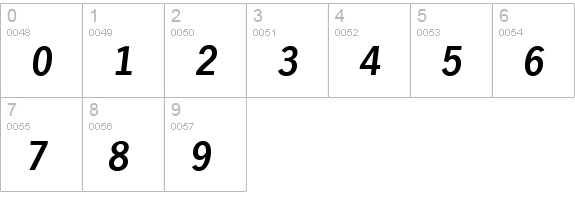
Hamburg-DemiBoldIta Font Details
Hamburg-DemiBoldIta is a stunning font that exudes elegance and sophistication. Its unique blend of boldness and italicized curves creates a visually striking design that is sure to captivate any audience. With its precise and clean lines, Hamburg-DemiBoldIta is perfect for a wide range of creative projects, including branding, advertising, packaging, and more. Whether you're designing a sleek logo or crafting a stylish headline, this font will effortlessly elevate your work to the next level. One of the most appealing aspects of Hamburg-DemiBoldIta is that it is available for free. That's right, you can freely download this exceptional font at FontsMarket.com. This makes it accessible to designers of all levels, whether you're a seasoned professional or a passionate hobbyist. The versatility of Hamburg-DemiBoldIta is truly remarkable. Its bold and italicized nature allows for a wide range of typographic expressions, giving you the freedom to convey various moods and emotions in your designs. From modern and edgy to classic and elegant, this font can effortlessly adapt to any aesthetic. Furthermore, Hamburg-DemiBoldIta is meticulously crafted with attention to detail, ensuring that each character is perfectly balanced and harmonious. The result is a cohesive and visually pleasing typography that will leave a lasting impression on your audience. In conclusion, Hamburg-DemiBoldIta is a top-notch font that combines boldness and italics in a beautifully harmonious way. With its free availability at FontsMarket.com, there's no reason not to add this exceptional font to your design toolkit. So go ahead, download Hamburg-DemiBoldIta today and unleash your creativity!